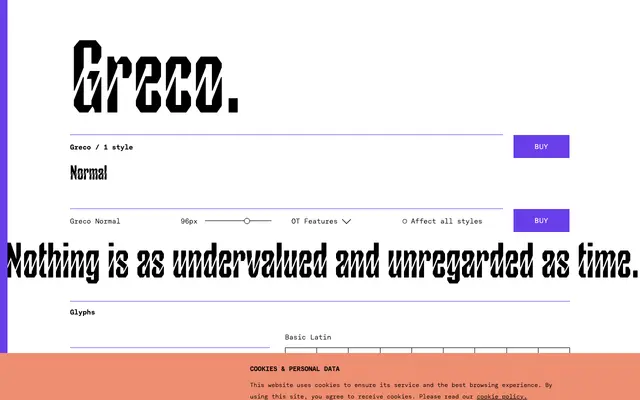
Greco
TYPE BY · Fred Smeijers and Pierre Pané-Farré · 2012
A stencil display typeface by Fred Smeijers and Pierre Pané-Farré, drawing on late nineteenth-century heavy condensed wood type alphabets and reinterpreted through the visual language of early low-resolution bitmap fonts.
Designed by Fred Smeijers and Pierre Pané-Farré, Greco Stencil belongs to the Stencil Fonts Series released in 2012 to accompany an exhibition on the history of the stencil letter. Its heavy condensed forms trace back to wood type traditions of the 1880s, where mostly uniform glyph widths simplified spacing calculations for posters and signs. The diagonal-running breaks in its stencil cuts introduce a pattern that unexpectedly echoes early mobile phone display fonts, a conceptual leap across time that shaped the design's final character.
A stencil typeface with heavy condensed uppercase forms derived from late nineteenth-century wood type traditions, adapted with diagonal-running breaks evoking early low-resolution bitmap fonts. Classified as display due to its decorative stencil construction and bold poster heritage.